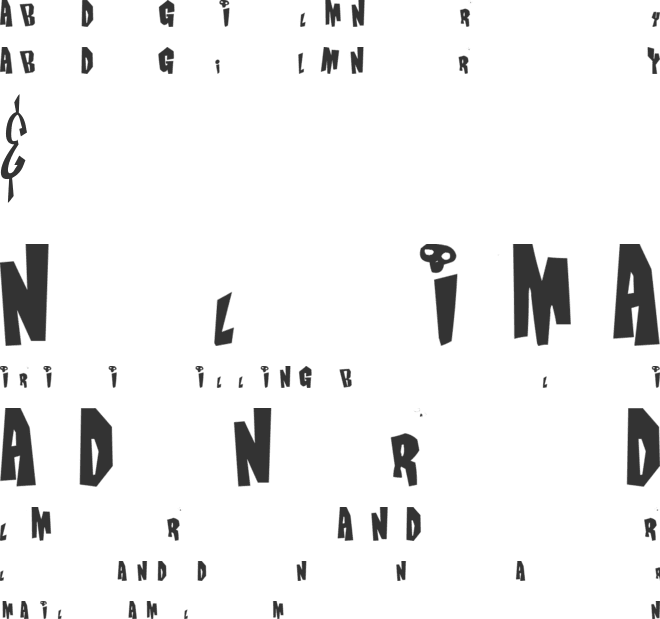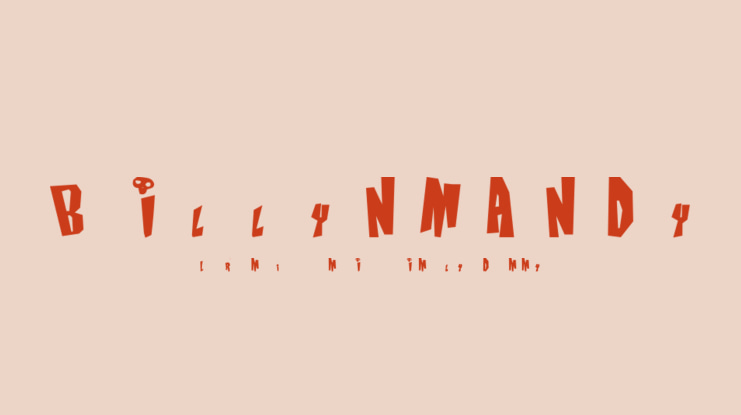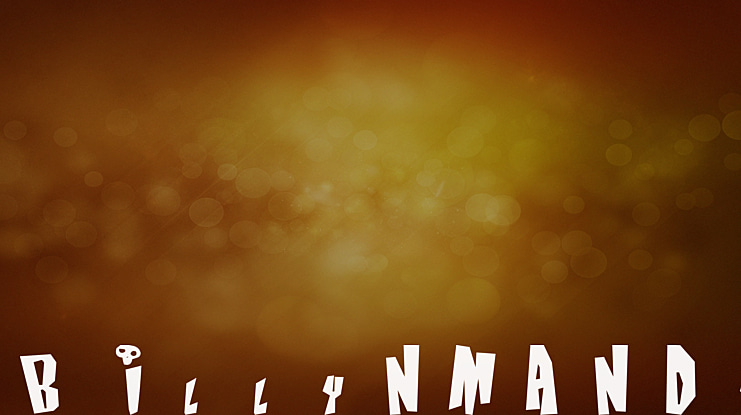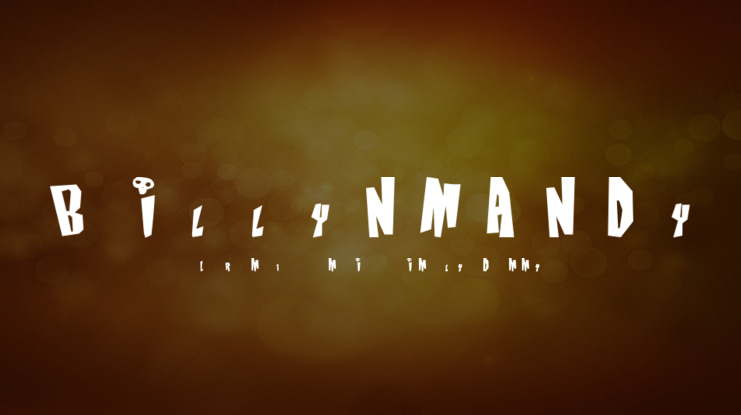
BillynMandy Font Family
Based For The Grim and Evil Era, Billy And Mandy 2000 - 2003 Logo. Link to other "The Grim Adventures of" Part of the Font https://www.cufonfonts.com/font/germania